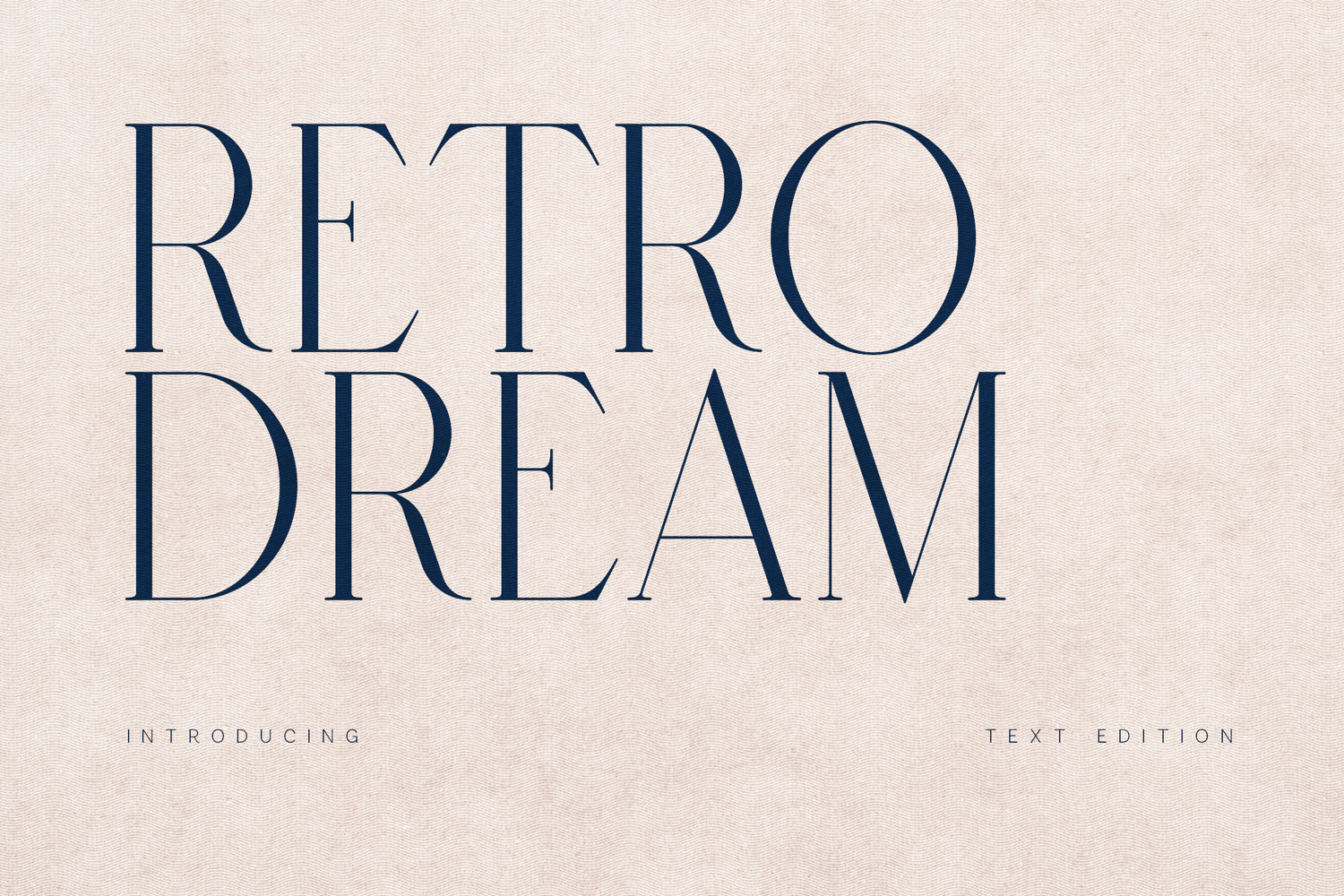
Retro Dream Elegant Modern Serif Font
Retro Dream is a refined high-contrast serif typeface designed for luxury branding, editorial design, and sophisticated visual identities.
Inspired by contemporary fashion typography and timeless editorial aesthetics, Retro Dream blends sharp elegance with delicate curves. The contrast between thick and thin strokes creates a dramatic yet graceful presence, making it perfect for premium brands and artistic layouts.
Its distinctive letterforms — especially in characters like R, A, M, and S — bring personality while maintaining balance and readability.
Perfect for designers who want impact without losing elegance.
Perfect For:• Fashion branding
• Luxury logos
• Editorial layouts
• Magazine headlines
• Beauty & cosmetic packaging
• Wedding design
• High-end social media visuals
• Modern serif logo design
Carefully spaced and optimized for both print and digital use.
Retro Dream delivers timeless sophistication with a modern edge.